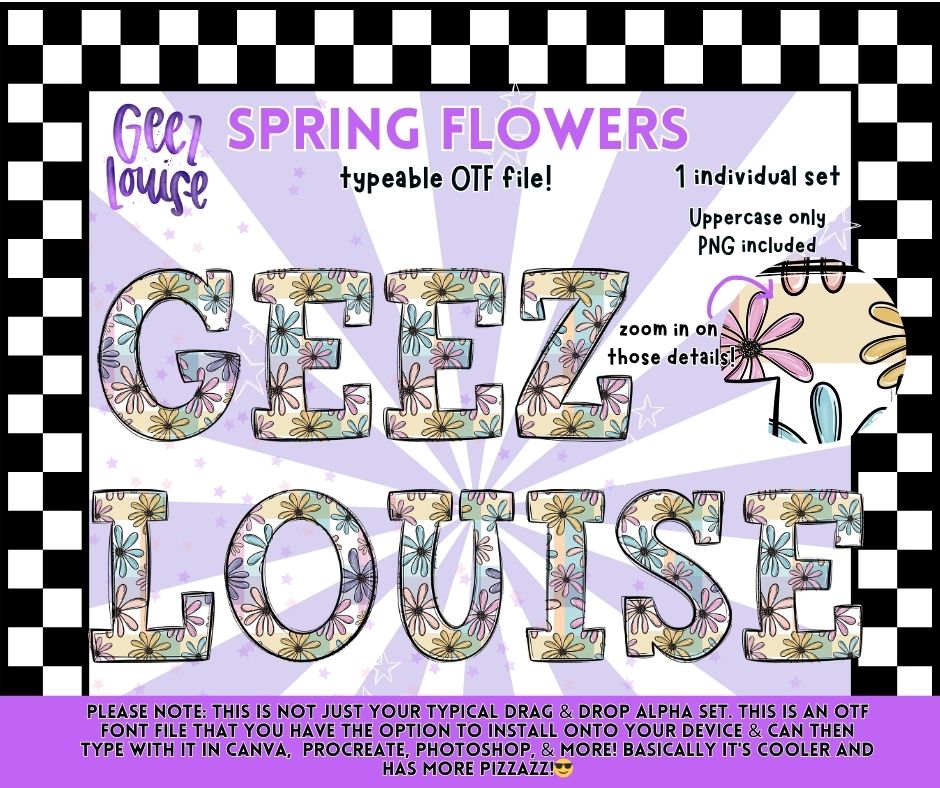
Spring Flowers OTF Font | Uppercase Typeface + PNG | Floral Alphabet
Meet Spring Flowers — a cheerful floral alphabet filled with soft blooms and a bright, seasonal feel 🌸
• Uppercase letters only
✔️ Bright florals with a polished, professional finish